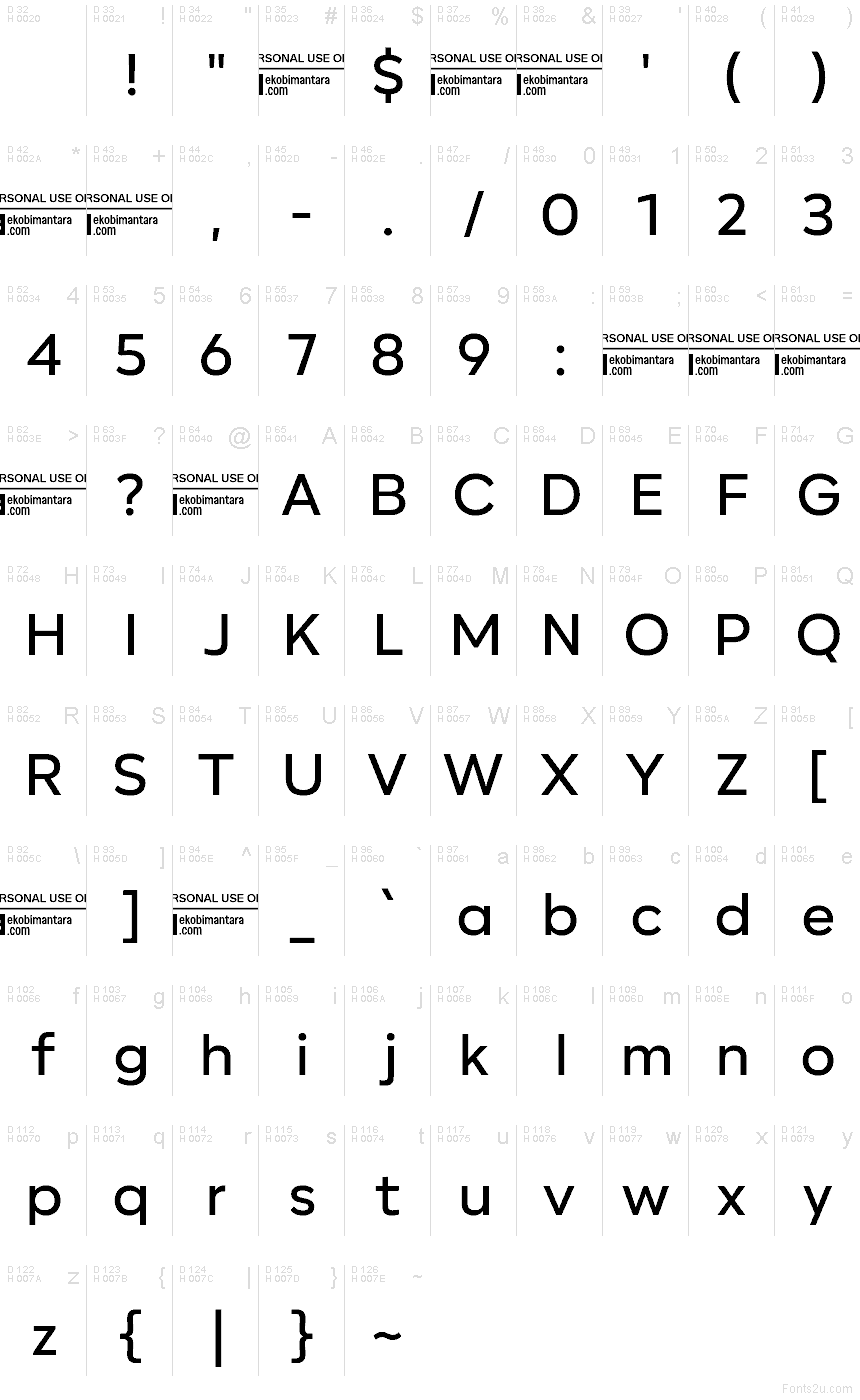
Geova Trial Medium
Geova Medium font by Eko Bimantara is a free sans serif font that nails the sweet spot between friendly and professional. Its rounded geometry keeps counters open and legible, while crisp cuts on letters like the V add just enough edge to feel modern. Part of the Geova family, it reads clean at small sizes and holds steady at display scale—great when you need one voice to do both.
Using Geova Medium, you get steady rhythm, generous spacing, and a confident weight that shines on logos, tech branding, app UI, presentations, signage, packaging, and bold headlines. This free font keeps messaging clear without going cold, making it a natural fit for fast-moving digital and print work. Simple tip: pair Geova Medium with Geova Regular for body copy, or a warm serif to bring contrast.